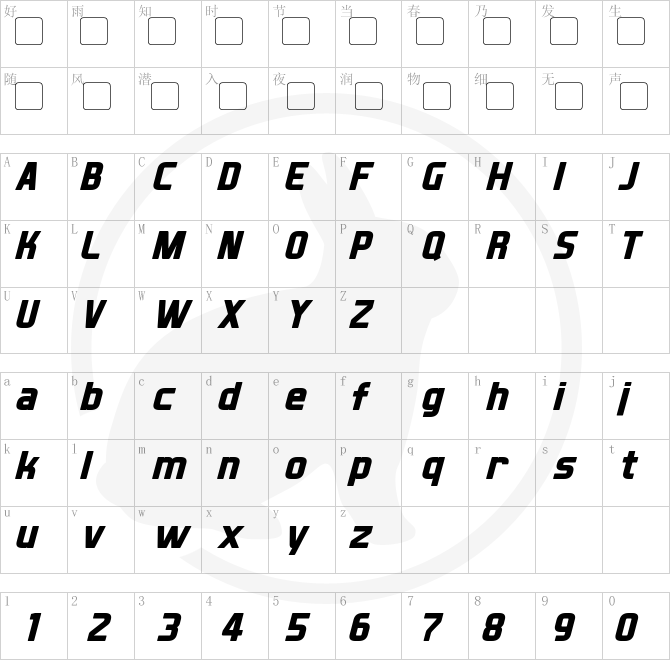
- Font Name:XBall
XBall-Italic.ttf is a very beautiful artistic font, XBall-Italic.ttf is widely used in the design and printing of various books and pictures,XBall-Italic.ttf has a strong visual impact,XBall-Italic.ttf is a commonly used font in newspapers, magazines and books, and is used in posters, e-commerce Poster design, store design, logo design, font design and other fields.XBall-Italic.